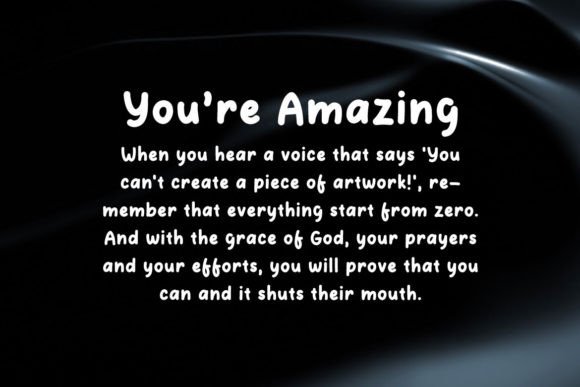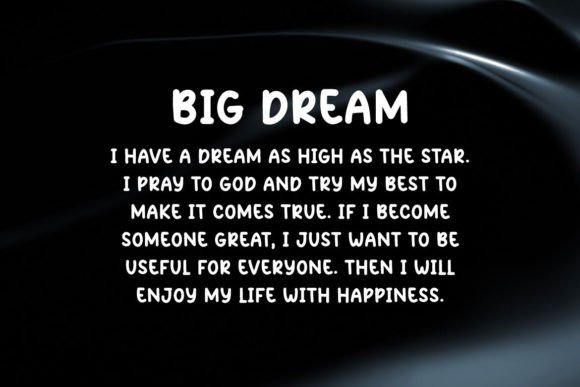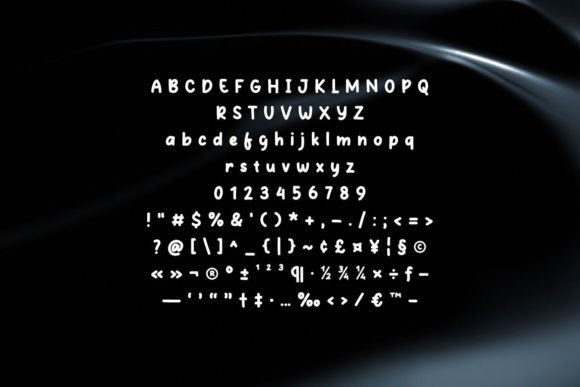
Introducing Handy Talkie: The Bold Comic Font That Speaks Volumes
Are you tired of using the same old fonts in your designs? Do you want to add a touch of fun and personality to your text? Look no further than Handy Talkie, a bold comic font that’s perfect for making your text pop in comics, posters, and more!
A Playful and Expressive Font
Handy Talkie is a bold comic font that’s designed to speak volumes with its playful and expressive characters. Its unique and quirky design makes it perfect for adding a touch of humor and whimsy to your designs. Whether you’re creating a comic book, a poster, or a social media graphic, Handy Talkie is the perfect choice for designers who want to add a bit of personality to their text.
Handy Talkie is a versatile font that’s perfect for designers and crafters of all levels. Whether you’re a professional designer or a hobbyist, this font is easy to use and can be incorporated into a wide range of projects. From comic books and graphic novels to posters, flyers, and social media graphics, Handy Talkie is the perfect choice for anyone who wants to add a touch of fun and personality to their designs.
Key Features of Handy Talkie
- Bold and playful design: Handy Talkie is a bold comic font that’s designed to make your text stand out.
- Expressive characters: Each character in Handy Talkie is designed to be playful and expressive, making it perfect for adding a touch of humor and whimsy to your designs.
- Versatile: Handy Talkie can be used in a wide range of projects, from comic books and graphic novels to posters, flyers, and social media graphics.
Tips for Getting the Most Out of Handy Talkie
- Experiment with different colors: Handy Talkie looks great in a wide range of colors, so don’t be afraid to experiment and find the perfect color for your design.
- Use it in combination with other fonts: Handy Talkie can be used in combination with other fonts to create a unique and eye-catching design.
- Don’t be afraid to get creative: Handy Talkie is a playful font, so don’t be afraid to get creative and have fun with it.
Handy Talkie is a bold comic font that’s perfect for designers and crafters who want to add a touch of fun and personality to their designs. With its playful and expressive characters, Handy Talkie is the perfect choice for making your text pop in comics, posters, and more. So why wait? Download Handy Talkie today and start creating your own unique and eye-catching designs.